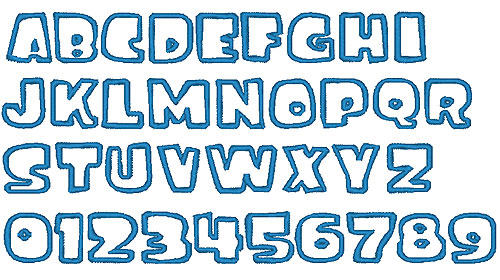
Ice Age D Font. Ice age font by florian doyen. 00 may 9, 2009, initial release iceagefont this font was created using fontcreator 5.
This font available for windows 7 and mac os in truetype (.ttf) and opentype (.otf) format. Ice age font family designed by unknown designer has a total of 1 different styles. Ice age font here refers to the font used in the poster title of the film ice age.
Ice age was designed by urw design staff and published by urw type foundry. Ice age d font download free in truetype and opentype format and download 57928 similar fonts with regular font style for windows and mac os x. Ice age standard (d) by urw type foundry.